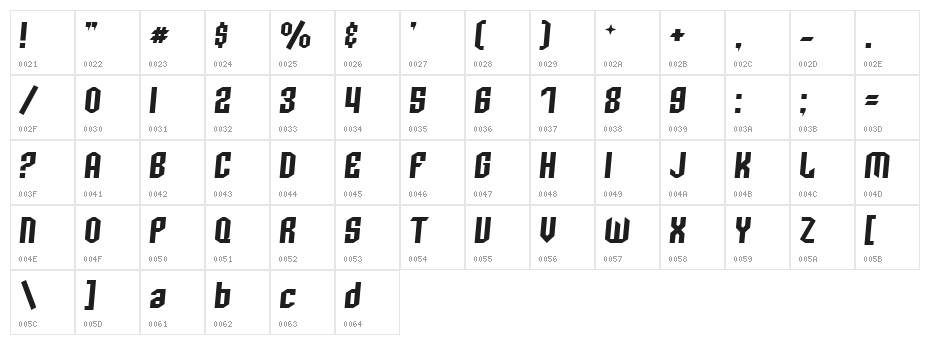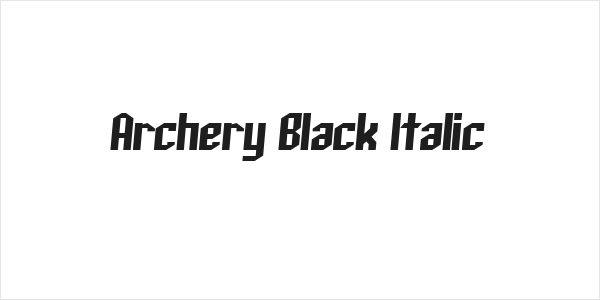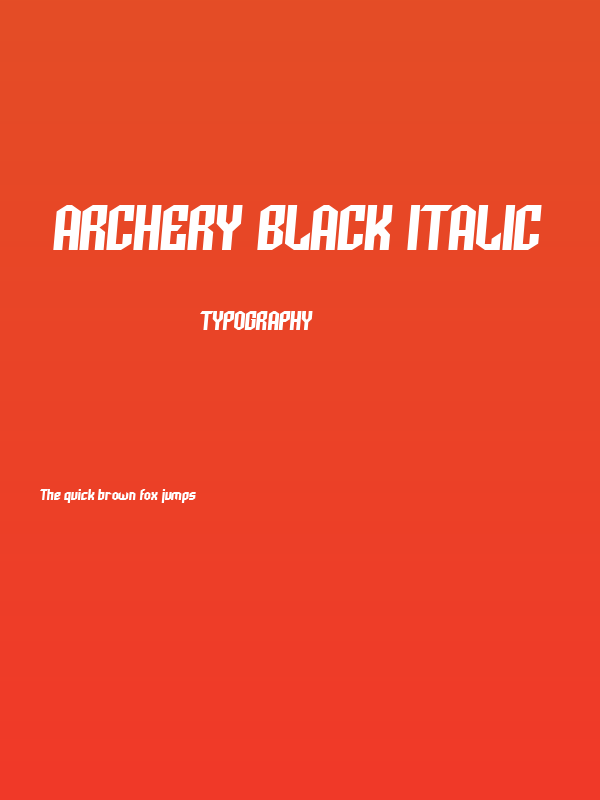
Archery Black Italic Font
Archery Black Italic Description
This font exhibits a bold and dynamic style with sharp, angular edges and a strong italic slant. The characters are designed with a modern, geometric flair, giving them a futuristic and edgy appearance. The uppercase and lowercase letters maintain a consistent style, with the lowercase mirroring the uppercase in form and structure. The numbers are equally bold, ensuring they stand out in any design. Special characters are crafted with the same attention to detail, providing a cohesive look across all elements. This font is ideal for projects that require a striking and impactful visual presence.
| Proposed Projects | Ideal for sports branding, posters, video game titles, and dynamic logo designs. |